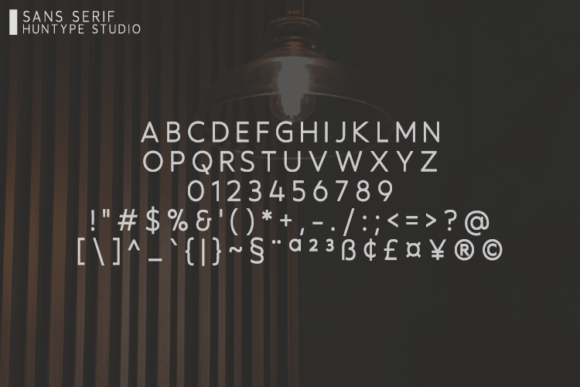
Introduction to Pugypt Font
Have you ever found yourself staring at a blank page, waiting for that spark of inspiration to strike? It’s a moment every creative knows all too well. For designers, this blank slate can be both a blessing and a curse. But what if I told you there’s a secret to unlocking that perfect design, one that’s both timeless and trendy? Enter the Pugypt Font, a sans serif font that effortlessly combines elegance and modernity.
With its transparent background and sleek, contemporary feel, Pugypt Font is the perfect addition to any design arsenal. Whether you’re working on a personal project or a high-profile campaign, this font is sure to make a lasting impression. So why settle for ordinary when you can have extraordinary? Discover the power of Pugypt Font and take your designs to new heights.
Key Features of Pugypt Font
- High-quality design: This font is crafted with precision and attention to detail, making it perfect for creative projects that demand a professional look.
- Unique style: The Pugypt Font boasts a distinctive and modern design, perfect for adding a touch of sophistication to your creative project or branding materials.
Honest Review: Pugypt Font
- High-quality design: The Pugypt Font is a beautiful, well-crafted font that adds a touch of elegance to any project.
- Great for creative projects: Whether you’re designing a logo, brochure, or website, the Pugypt Font is a versatile choice.
- Not suitable for all designs: While the Pugypt Font is versatile, it may not be the best choice for certain types of projects, such as children’s books or playful, cartoon-style designs.
- May require customization: Depending on the project, you may need to customize the font to get the look you want.
Overall, I’m impressed with the Pugypt Font. It’s a high-quality design resource that’s perfect for creative projects. While it may have some limitations, it’s definitely worth considering for your next design project.